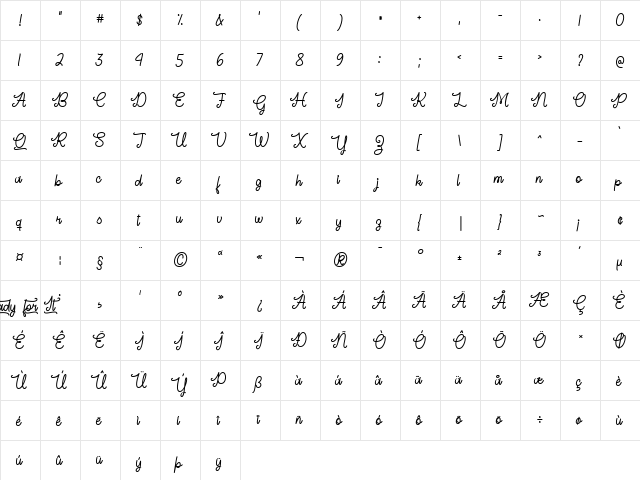
Ready For It DEMO Regular
Design Context for Ready For It DEMO Typeface
Ready For It DEMO is a composed and adaptable typeface that performs quietly and consistently across a wide range of design contexts.